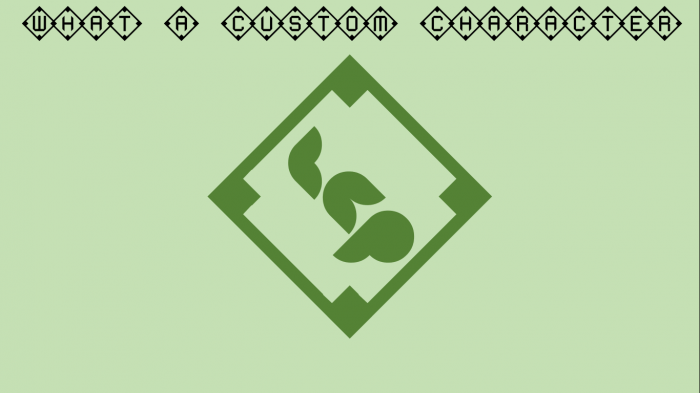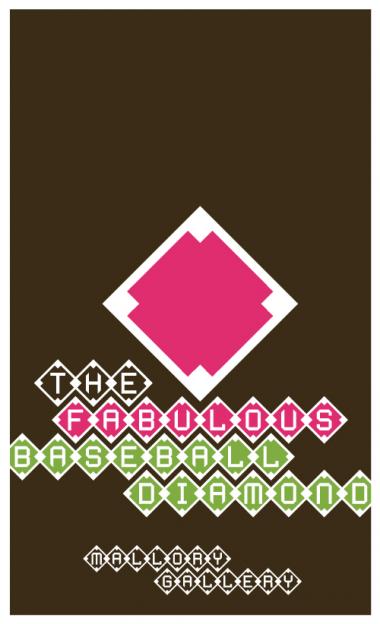
Another example, this one inspired by the Great Muppet Caper...
And yet another sample...
Field of Dreams. I like the diamond overlap. Nice entry.
very cool idea!
The marriage of first- and third-base is a stroke of genius.
I should have also noted that the blank diamond is actually the ~ .
Although it wasn't for the Sports Challenge and had nothing to do with baseball, I constructed a font called DiamondLinkMono with a similar pattern last year. My concept referred to the diamond shapes themselves and their use as links in a chain.
Your idea and execution are both much better than mine. Good luck with the contest! :)
My South Carolina Gamecocks just won the NCAA National Baseball Championship. So I added a character in their honor...
Favorited this one! I think this font would make a nice monogram to cut with a die cutter at small sizes. Plus I can't resist Muppets or Gamecocks :)